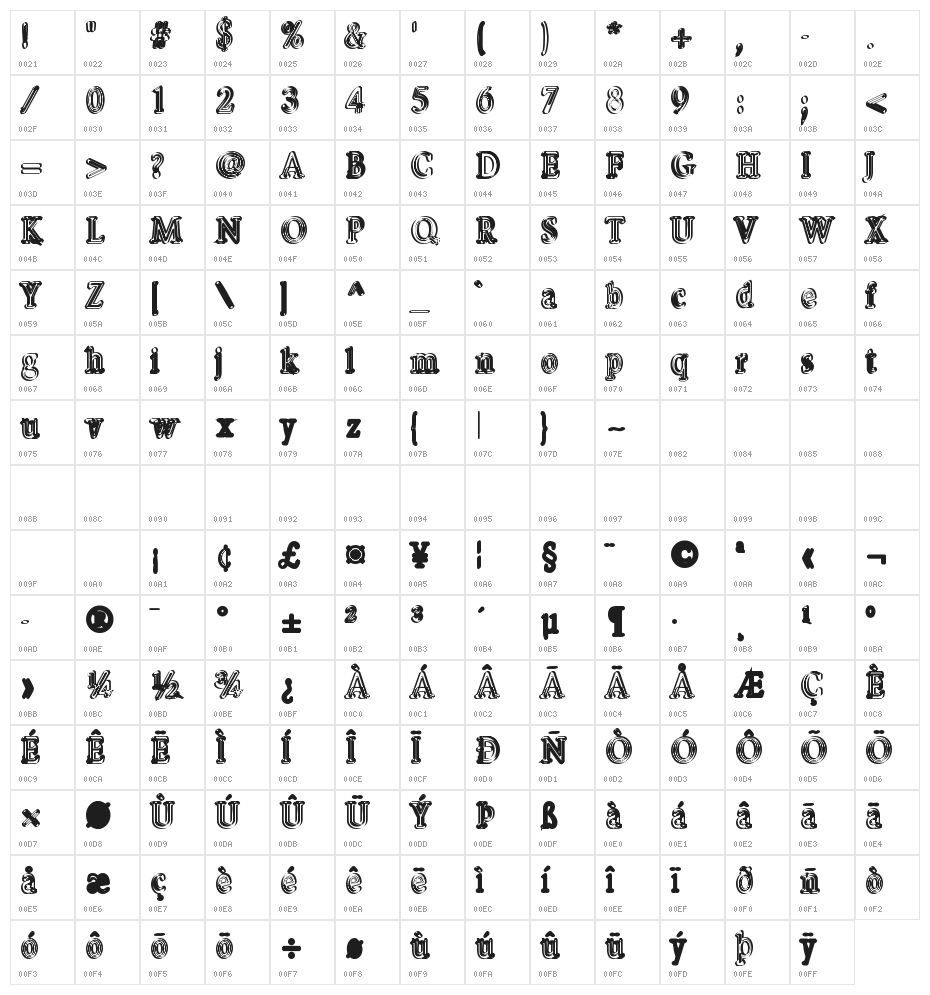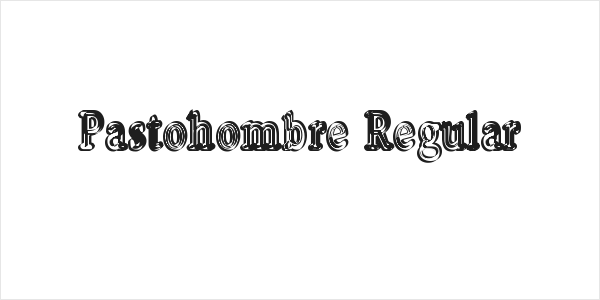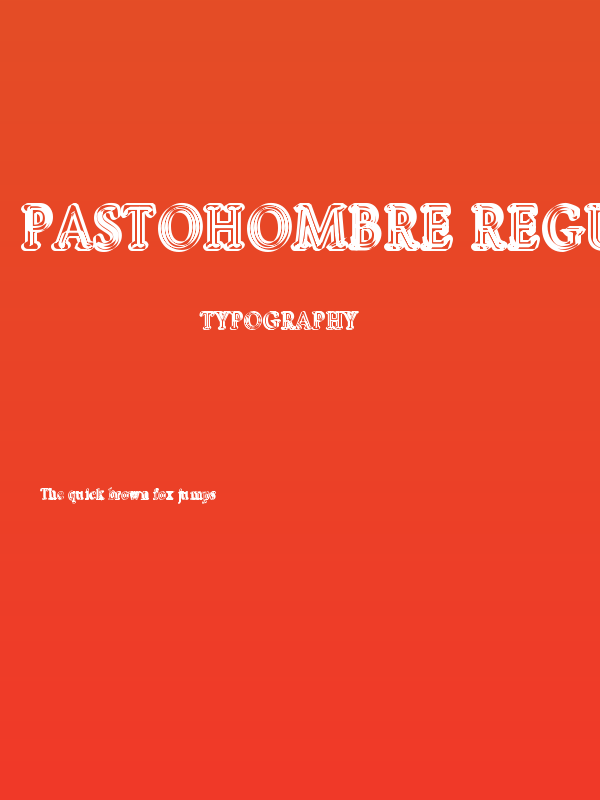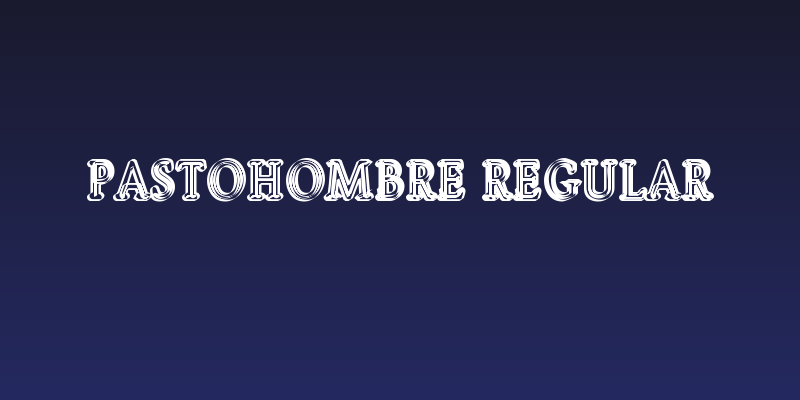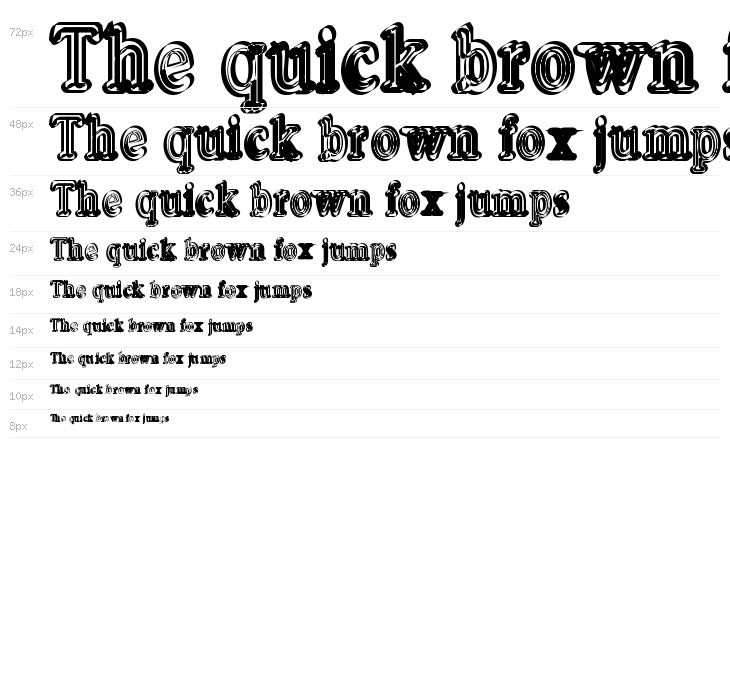
Pastohombre Regular Font
Pastohombre Regular Description
This font features a bold and decorative style with a unique layered effect that gives it a three-dimensional appearance. The characters are outlined with a thick black stroke, creating a shadow-like effect that adds depth and visual interest. The uppercase and lowercase letters maintain a consistent style, with the lowercase letters slightly smaller but equally bold. The numbers and special characters follow the same design principles, ensuring uniformity across all glyphs. This font's distinct look makes it stand out, making it suitable for eye-catching designs.
| Proposed Projects | Ideal for poster designs, headlines, branding projects, and any creative work that requires a striking visual impact. |